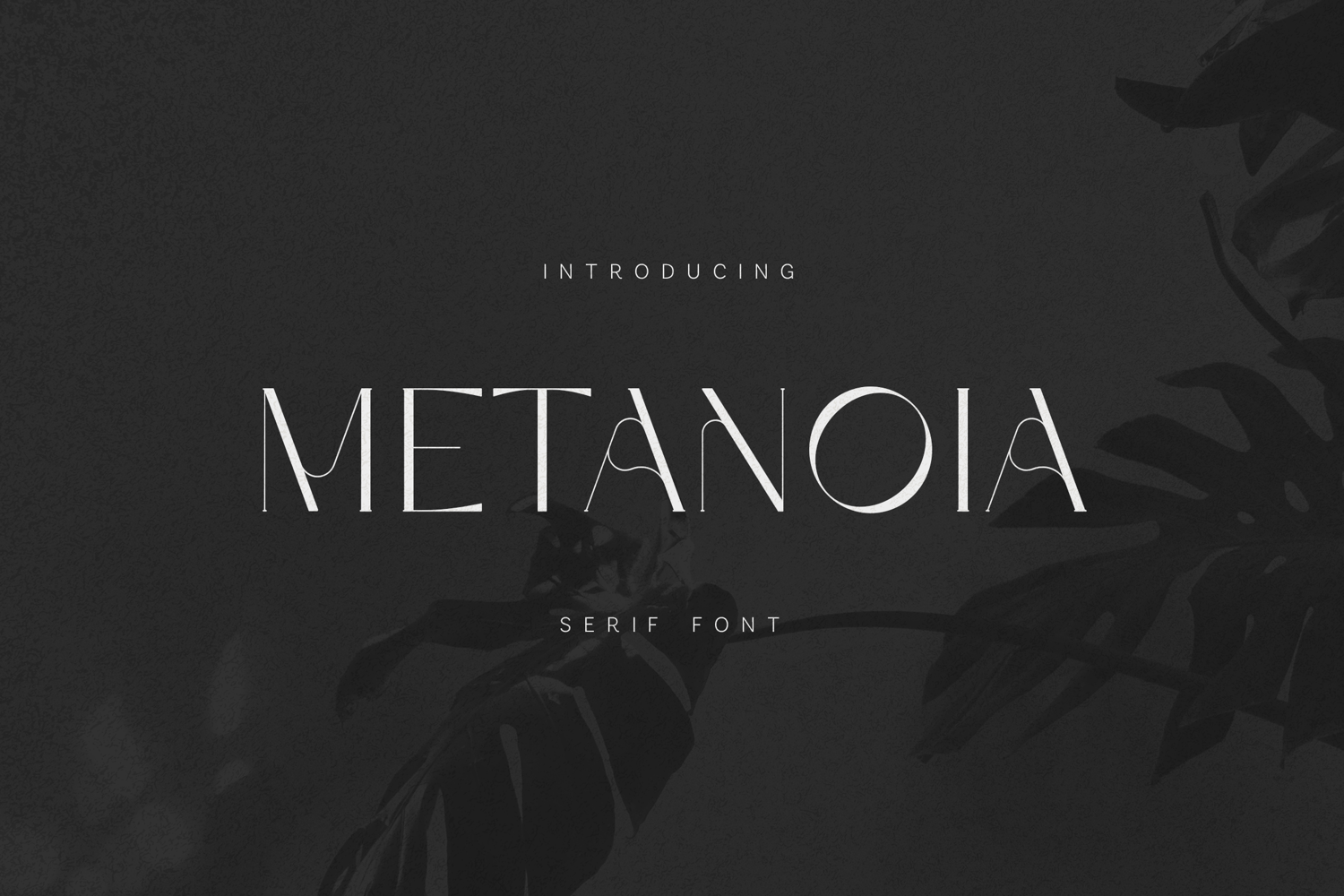
Metanoia Elegant Futuristic Serif Font
Metanoia is an elegant modern serif font that blends minimalism with a futuristic touch. Designed with refined proportions and delicate contrast, it delivers a sophisticated and airy typographic presence.
The letterforms feature smooth curves, sharp transitions, and distinctive flowing connections that subtly break the structure, creating a unique rhythm across words. This balance between precision and fluidity gives the font a contemporary and expressive identity.
Metanoia carries a calm, cinematic tone. Its light structure and graceful shapes make it ideal for designs that aim for clarity, elegance, and emotional impact. The refined serif details add a sense of luxury, while the modern construction keeps it clean and versatile.
This typeface works especially well in:
• editorial design
• branding identities
• luxury visuals
• fashion campaigns
• magazine layouts
• logo design
• social media compositions
• modern typography projects
With its elegant structure, modern flow, and refined details, Metanoia is a serif typeface designed to bring sophistication and clarity into contemporary design.